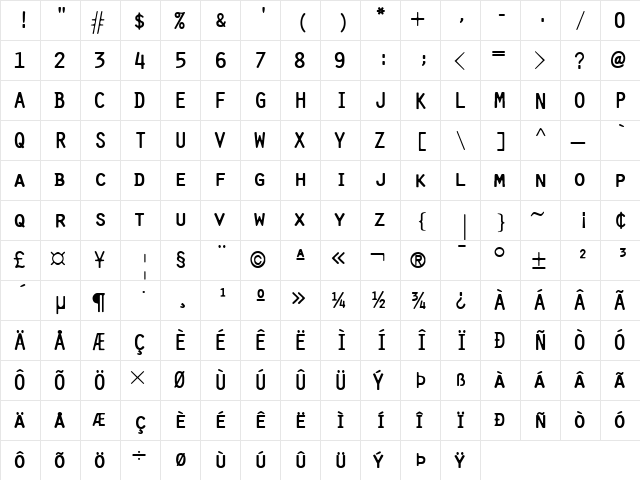
Pure Regular
Design Context for Pure Typeface
Pure offers clean, dependable letterforms without strong stylistic allegiance, making it a practical choice for designers who need flexibility.
Pro Tip: Pair Pure with a font of contrasting weight or personality to build a more expressive typographic hierarchy.